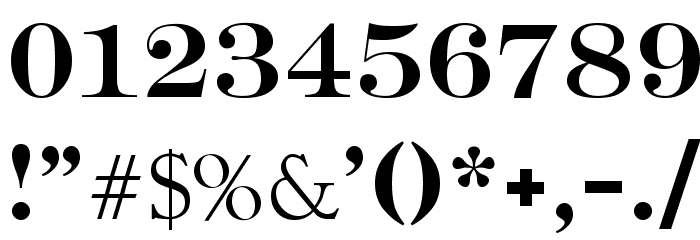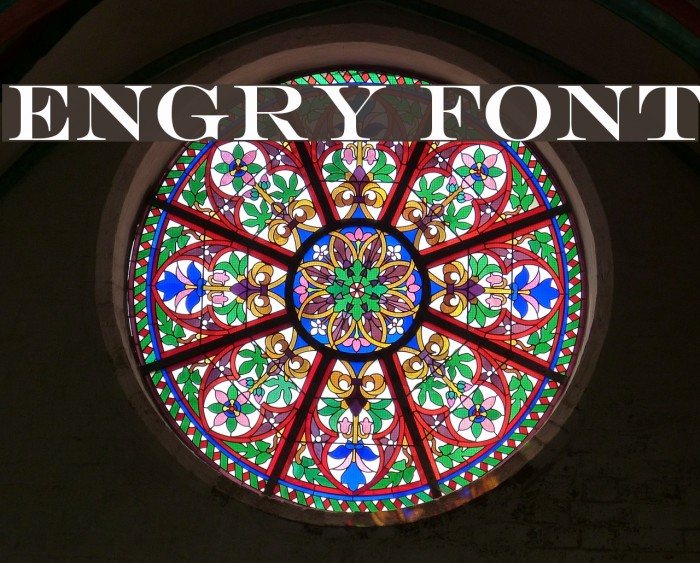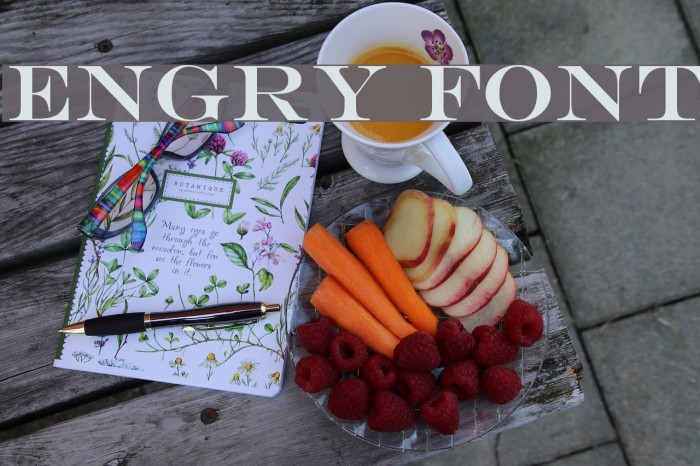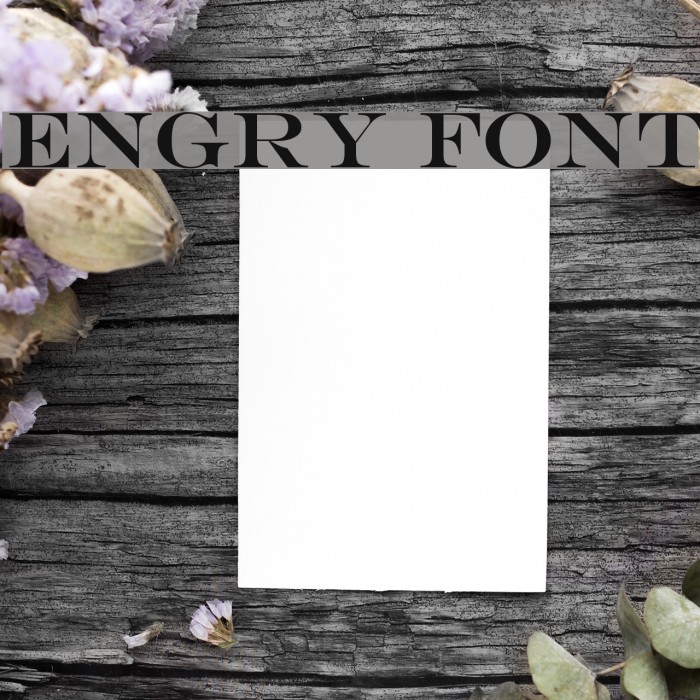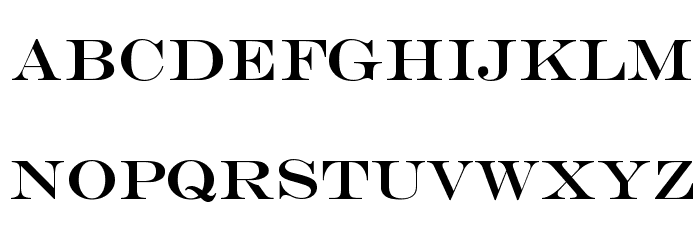
Engry Font
Engry Description
This font exhibits a classic serif style with elegant, sharp serifs and a balanced proportion. The uppercase letters are bold and commanding, while the lowercase letters maintain a consistent and harmonious flow. The numerals are distinct and clear, featuring a traditional design that complements the overall aesthetic. Special characters are well-integrated, maintaining the font's cohesive look. The high contrast between thick and thin strokes adds to its sophistication, making it suitable for formal and professional applications.
A classic serif font with high contrast and elegant serifs from Uncategorized fonts.
- Proposed Projects: Ideal for editorial design, book covers, formal invitations, and branding projects that require a touch of elegance and tradition.
- Overall Style: Classic